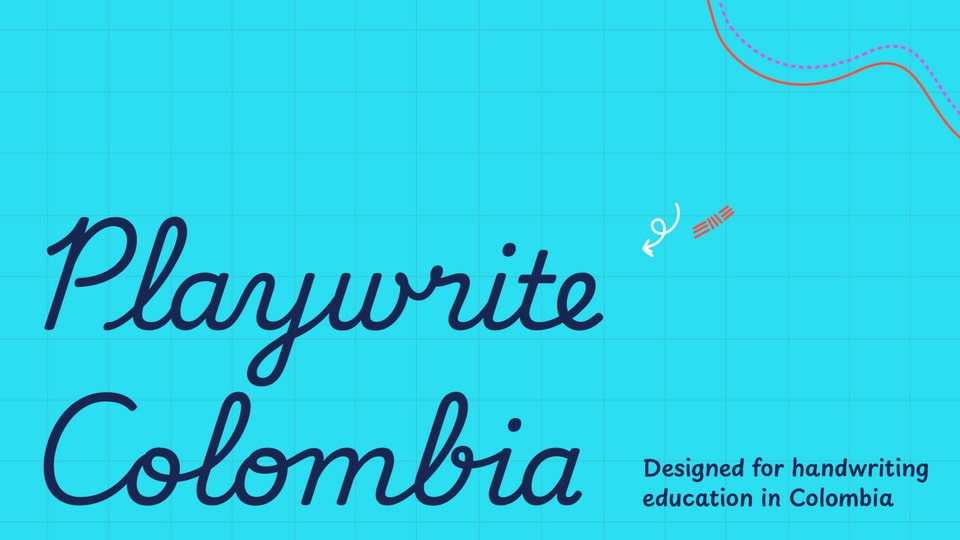
Download Playwrite Colombia font, a typeface that allows the creation of primary school cursive fonts. Following the tradition and current use of these booklets, Playwrite Colombia is a very slanted continuous cursive.
Designer: TypeTogether